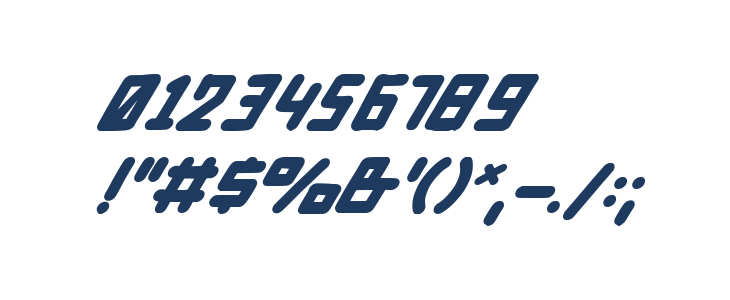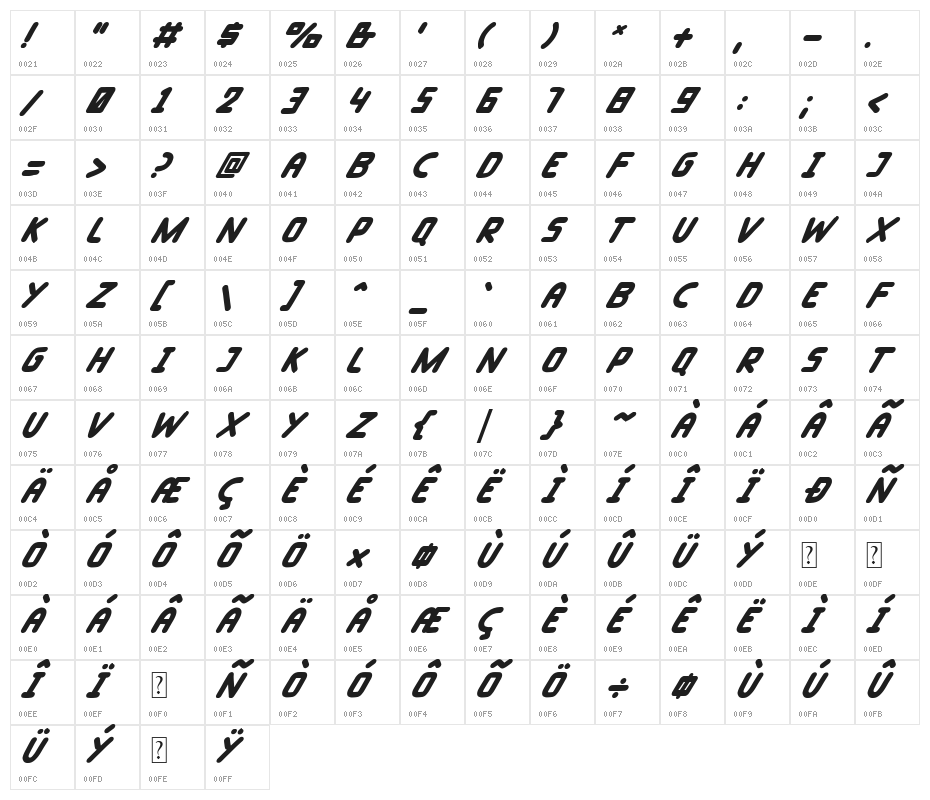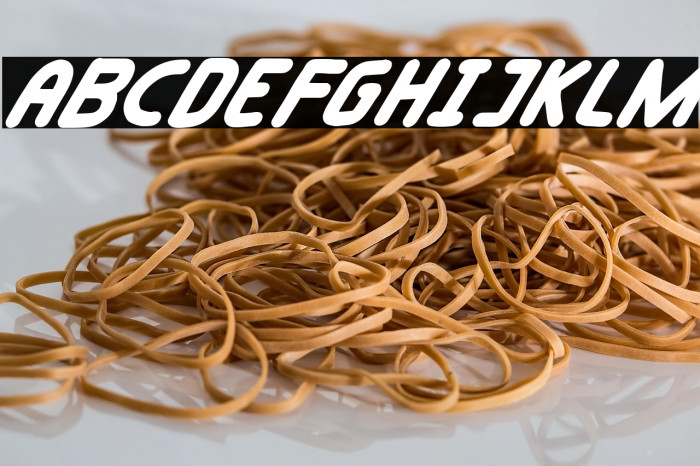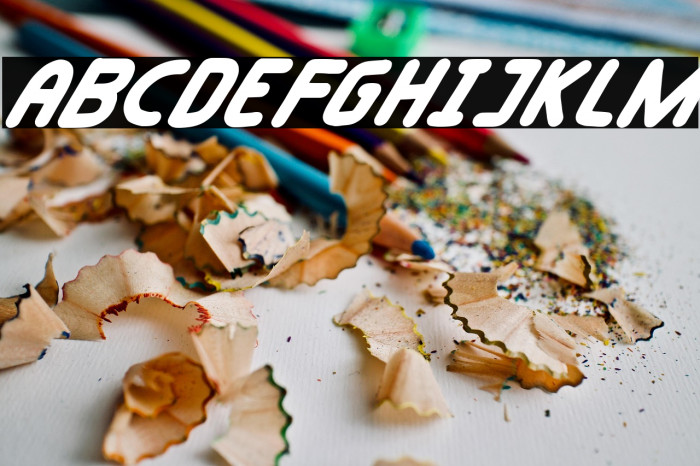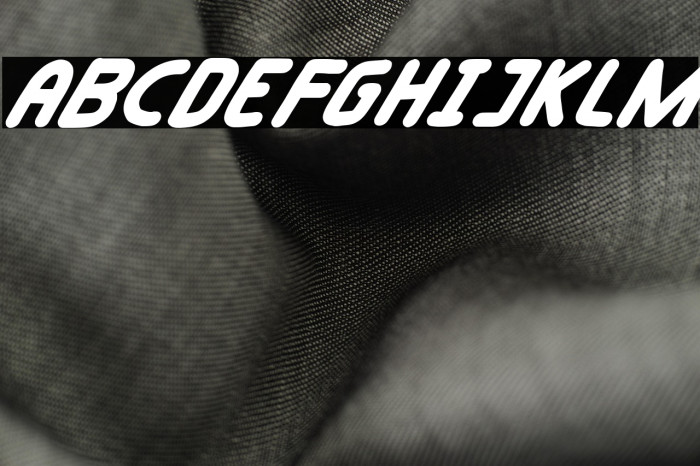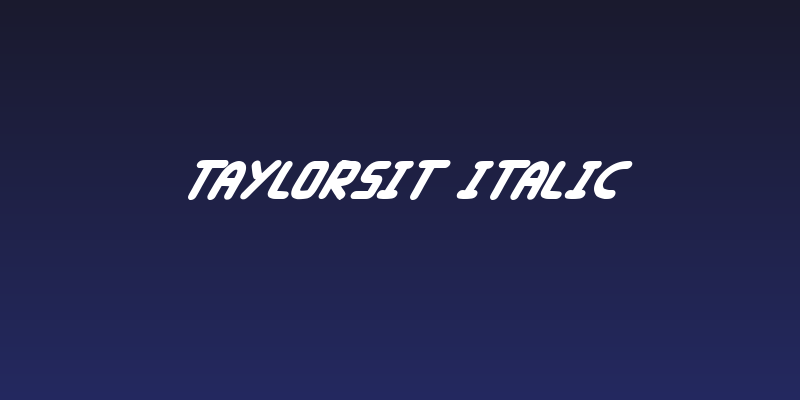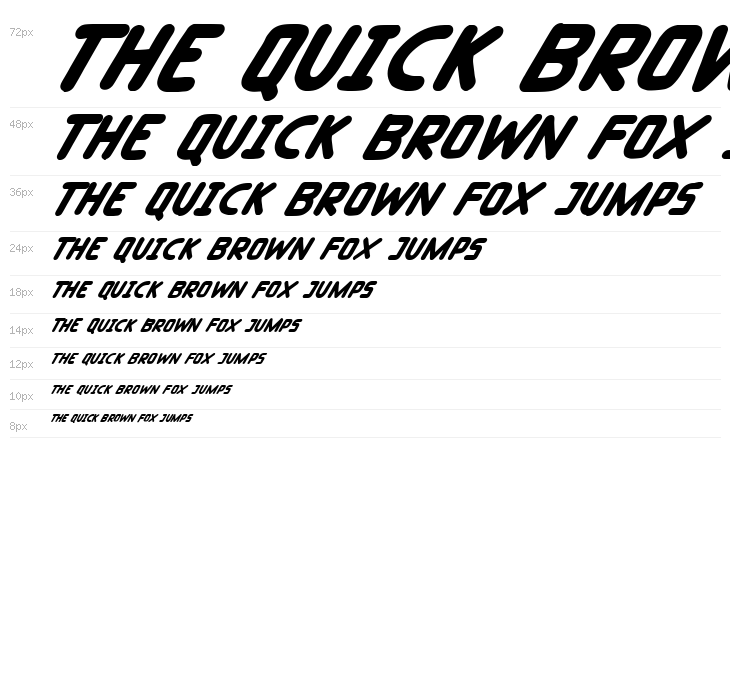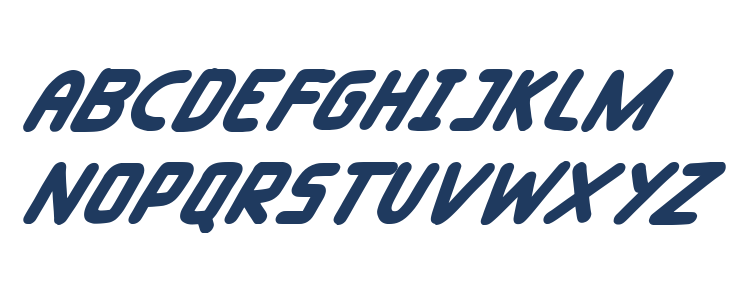
Taylorsit Italic Font
Taylorsit Italic Description
This font features a bold and dynamic style with a strong italic slant, giving it a sense of motion and energy. The characters are thick and rounded, providing a robust and impactful appearance. The uppercase and lowercase letters maintain a consistent style, with smooth curves and a slightly condensed form. The numerals are equally bold, matching the overall aesthetic of the alphabet. Special characters are included, maintaining the same bold and italicized characteristics, ensuring a cohesive look across all glyphs. This font's design is suitable for projects that require a strong and energetic visual presence.
| Proposed Projects | Ideal for sports branding, dynamic advertising, posters, and any project needing a bold, energetic typeface. |